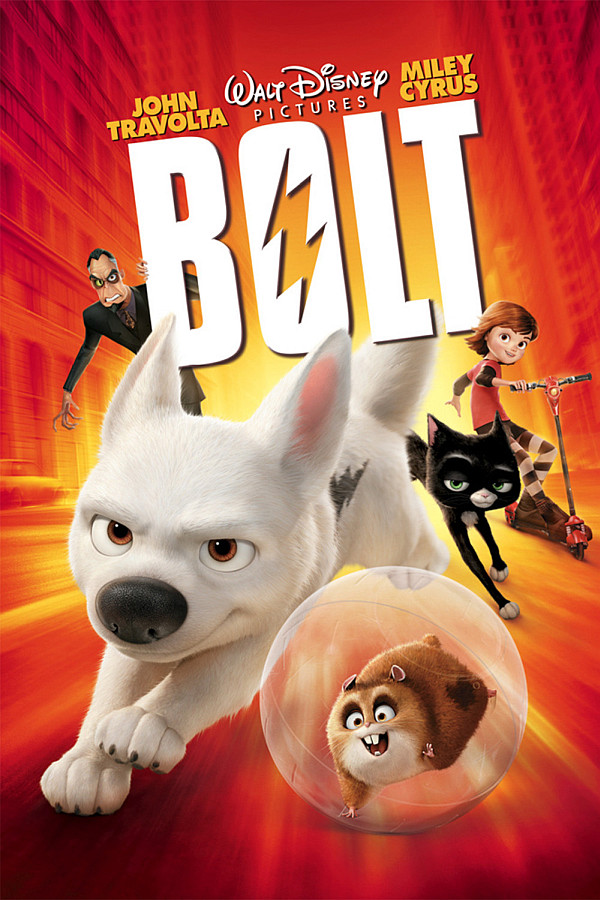
Disney Bolt Font
AnimationBolt is a 2008 American computer-animated comedy-adventure film produced by Walt Disney Animation Studios. It features a dog who stars in a TV show as a superhero but mistakenly believes his powers are real when he is separated from his human and goes on a journey to find his way home. Along the way, he meets a street-smart cat and a hamster who help him discover his true strength and bravery.
Bolt's logo is probably set in Compacta Bold, with an altered letter "O". Compacta is a condensed sans-serif designed by Fred Lambert for Letraset in 1963. You can preview and buy the font here.